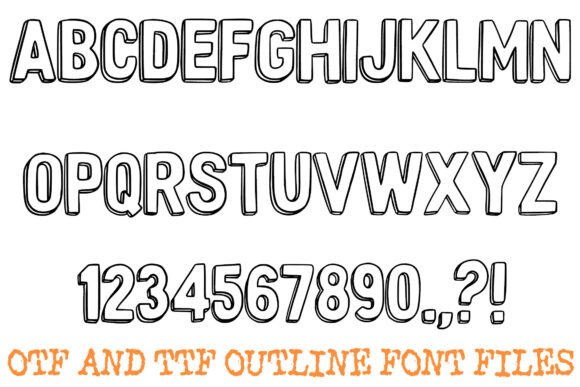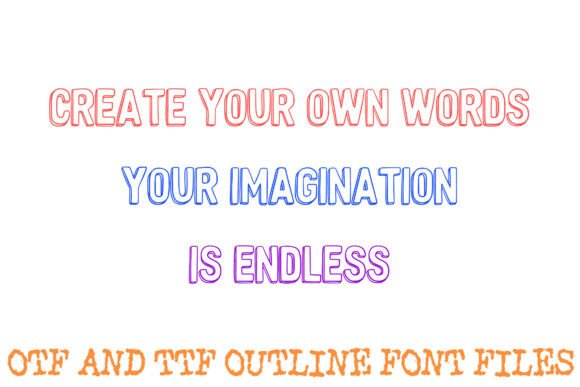
Bring Your Designs to Life with the Cartoon 3D Doodle Font
Do you remember the thrill of bringing a blank sheet of paper to life with a crayon or marker? The world of design is full of moments like these, where creativity flows freely and imagination knows no bounds. For designers looking to infuse their projects with a playful, whimsical touch, the Cartoon 3D Doodle Font is the perfect tool.
This hand-drawn display alphabet is specifically designed to add a touch of magic to any project. With its thick, clean outlines and subtle offset line, the Cartoon 3D Doodle Font creates a soft, three-dimensional effect that instantly grabs attention. Whether you’re creating teacher resources, children’s branding, or personalized stickers, this font is an ideal choice for designers seeking a professional yet handcrafted look.
Cartoon 3D Doodle Font Key Features
- Font Type: Hand-Drawn, Cartoon, 3D Doodle Font
- Unique Characteristics: Each character is hand-drawn with a playful, doodle-like style; includes a variety of glyphs and symbols
Cartoon 3d Doodle Font Review
Overall, I’d say that Cartoon 3d Doodle Font is a fun and creative font that can add a playful touch to your designs ✨. The 3D doodle effect gives it a unique and whimsical feel that can be perfect for children’s books, party invitations, or any other project where you want to convey a sense of playfulness.
- Unique and creative design ✨
- Perfect for projects where you want to add a playful touch
- Works well for headings and titles
- May not be suitable for formal or professional projects ⚠️
- Can be difficult to read in smaller sizes
- Not ideal for long blocks of text
Overall, I’d say that Cartoon 3d Doodle Font is a great addition to any designer’s toolkit, but it’s not a font that you’ll want to use for every project. Use it sparingly and strategically, and you’ll be sure to add a touch of whimsy and fun to your designs ✨.
To get the most out of the Cartoon 3D Doodle Font, try the following:
- Use it in combination with bold colors and playful graphics.
- Experiment with different font sizes and styles.
- Pair it with other fun and creative fonts for a unique look.